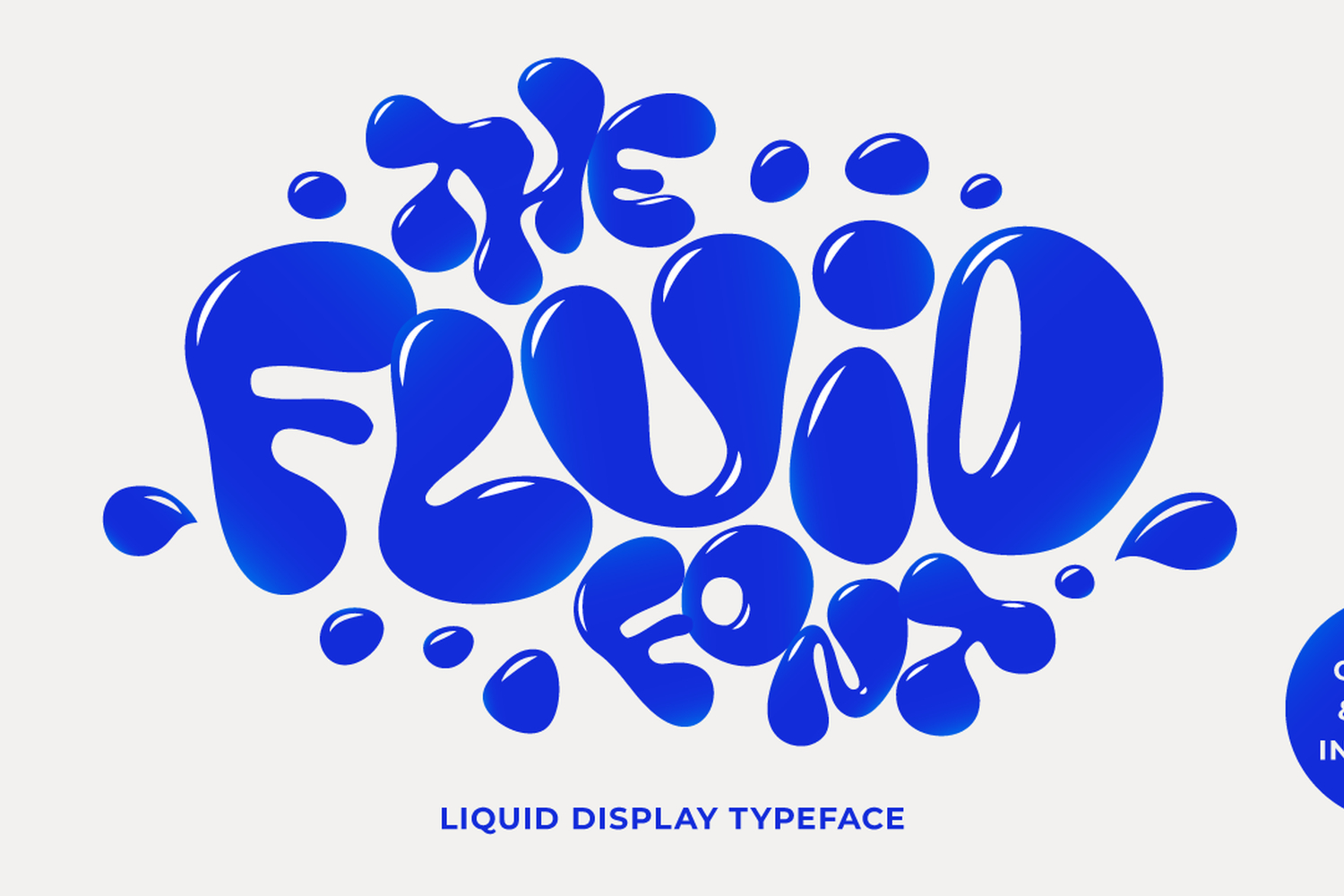
Bubble Liquid Font
Fluid
The Fluid Font is a bold, juicy typeface
Bubble Liquid Display is a playful display font inspired by liquid blobs.
Each character feels soft, inflated, and full of personality - made to grab attention instantly in headlines and brand moments.
Perfect for
• Logos for fun brands (snacks, drinks, kids products, entertainment)
• Posters, flyers, and event promotions
• Packaging, labels, and product branding
• Merch designs (t-shirts, stickers, tote bags)
• Social media posts, thumbnails, and bold cover art
• Summer campaigns, party invitations, and playful editorial titles
Ideal for large sizes (titles, headers, statement text)